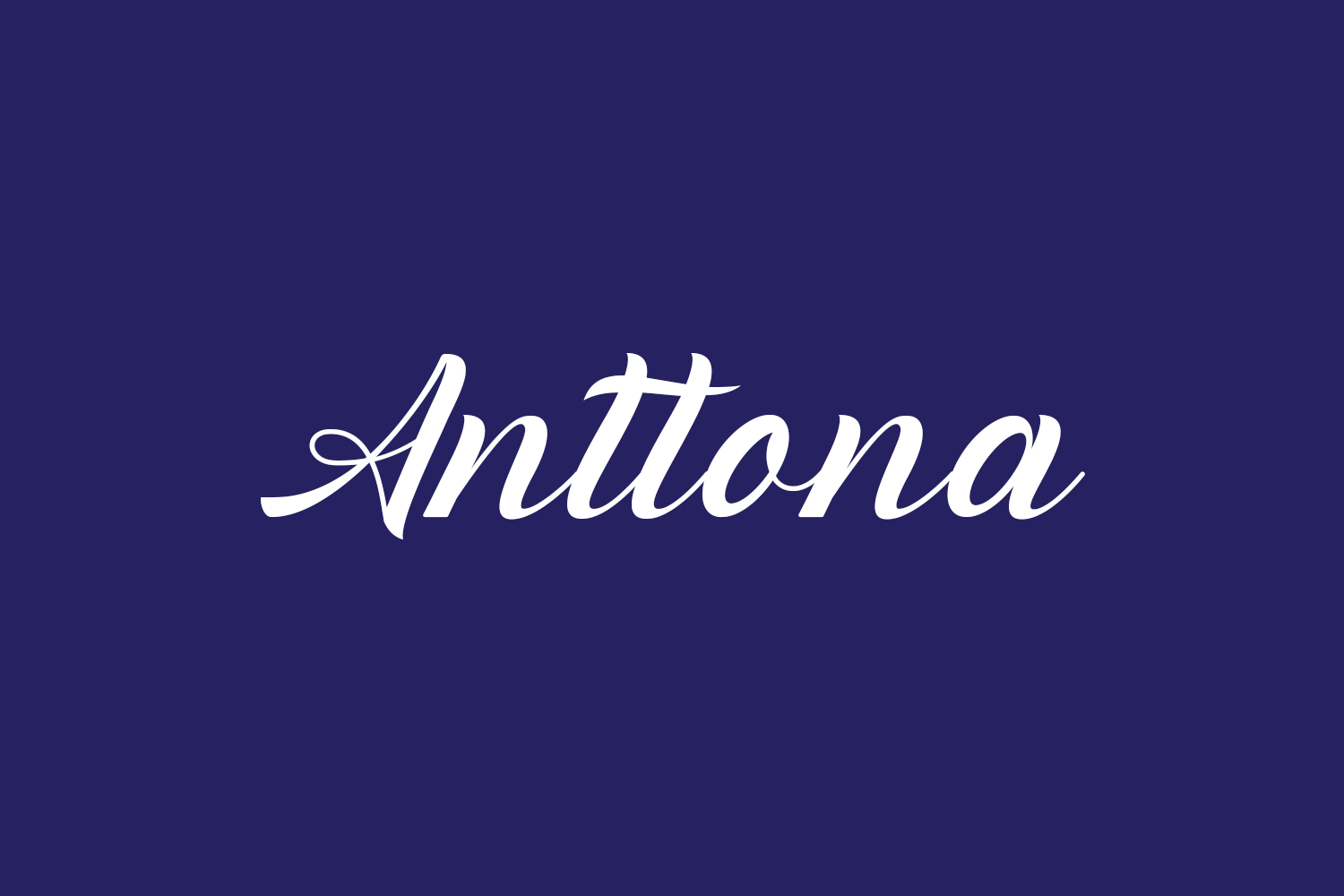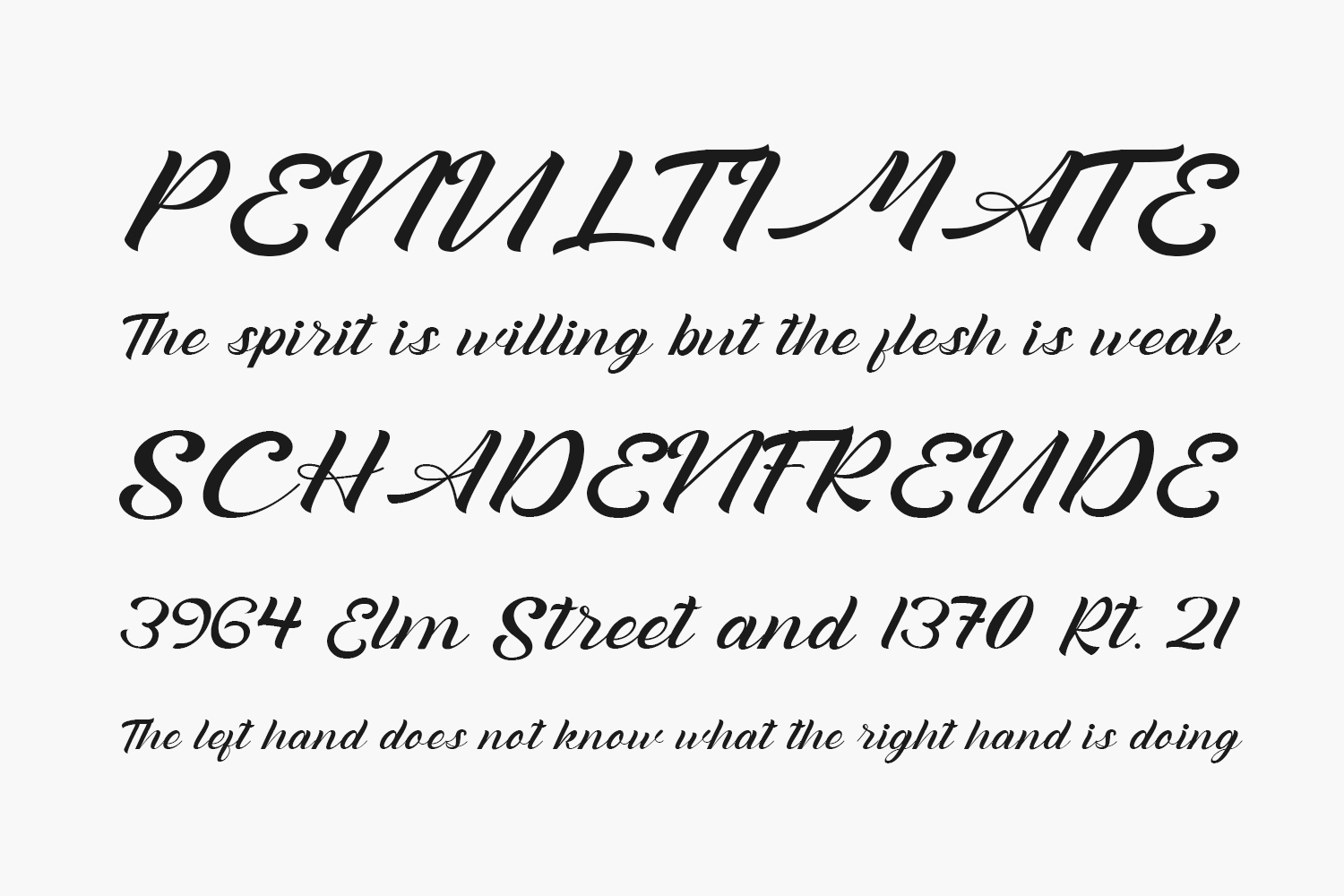
Introducing Anttona Free Font, a charming script font that seamlessly blends vintage aesthetics with a contemporary flair. This exquisite typeface is an ideal choice for a wide range of applications, including clothing designs, book titles, stationery creations, quotes, branding projects, logos, greeting cards, and beyond. Anttona Free Font is free for personal use only. Please purchase the full version for commercial use.